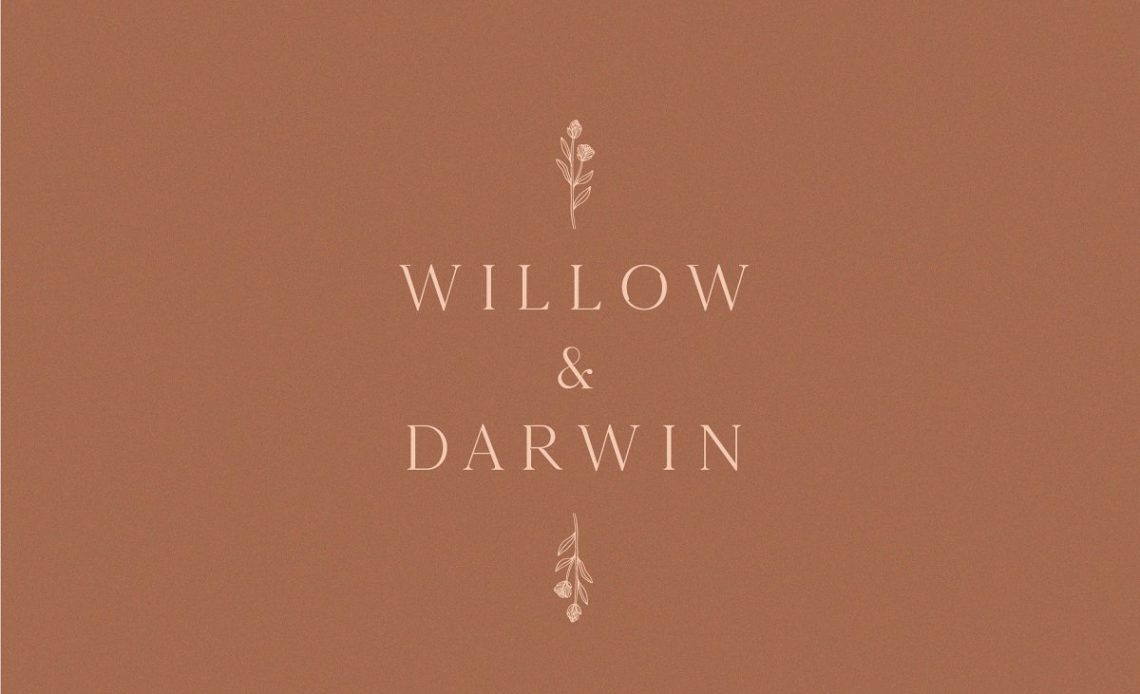
Introducing Kinfolk - the modern serif font that will take your designs to the next level. Kinfolk has been created by New Tropical Design Studio and is the best font style for design enthusiasts who want to add a touch of elegance and sophistication to their projects.
What sets Kinfolk apart from other fonts is its unique curves and cut-ins, making it one of the most memorable caps fonts on the market. Whether you're creating wordmark logos, mastheads, pull quotes or monograms, Kinfolk is a versatile font that can be used for any project.
One of the best features of Kinfolk is its ability to showcase both feminine and masculine qualities. It's a font that can be used for a variety of purposes, whether you're creating designs for a fashion brand or a law firm. Kinfolk is a font that will elevate your designs and make them stand out.
But Kinfolk isn't just a beautiful font. It's also easy to read, making it perfect for websites, blogs, and social media. Its classic style serif typeface is perfect for any project where you want to convey a sense of professionalism and elegance.
Pairing Kinfolk with the Shopping Script font by Roland Huse will take your designs to the next level. The Oft font with numbers and punctuation adds a touch of personality and creativity to your designs. If you have any questions about using Kinfolk in your designs, don't hesitate to ask.
In summary, Kinfolk is the perfect font for anyone looking to create beautiful, elegant designs. Its unique curves and cut-ins make it memorable, while its versatility makes it suitable for a wide range of projects. So why not download Kinfolk today and see for yourself how it can elevate your designs?